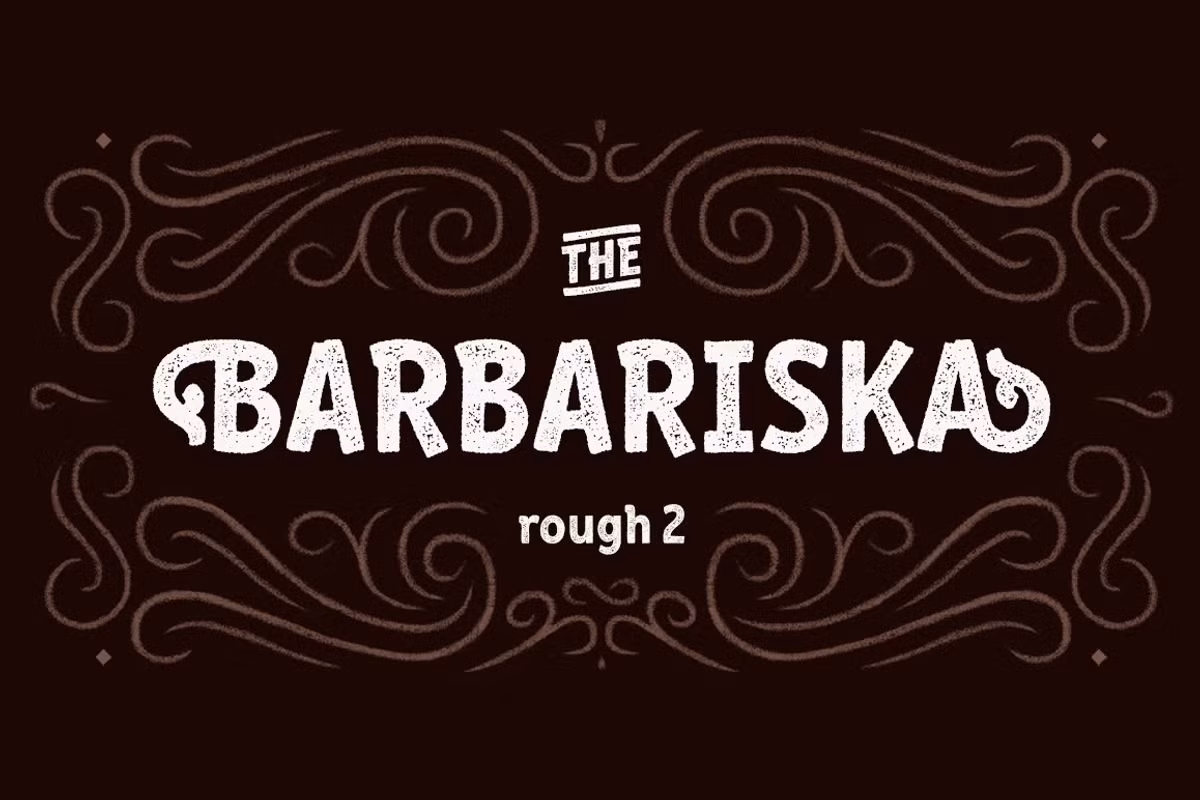
Barbariska Rough2 Pack Free Download is a gritty, bold, and heavily textured typeface set that brings raw energy and rebellious attitude to your designs. With its rough edges and distressed style, this font is perfect for vintage posters, streetwear branding, music covers, extreme sports graphics, and anything that needs a rugged, fearless look.
This pack includes multiple variations, giving you creative flexibility to mix and match for a truly custom feel. The hand-crafted texture adds depth and edge, making your typography feel authentic and full of character.
Designers love Barbariska Rough2 Pack for its strong personality and versatility across both print and digital formats. Want to break the rules and make a statement? Download Barbariska Rough2 Pack Free Download and let your next project scream with power and texture.